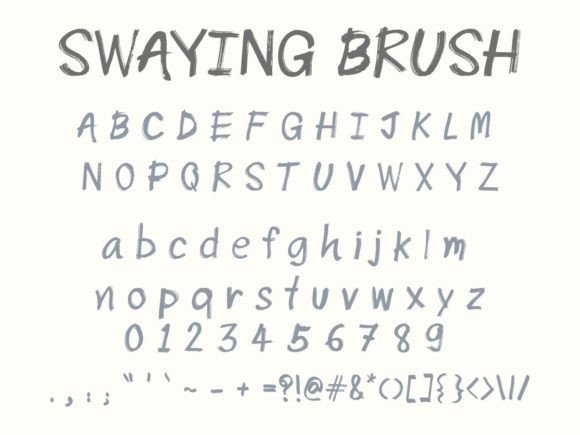
Introducing Swaying Brush Font, a captivating display font that evokes the beauty of life's easy-going moments. Inspired by gentle strokes of a brush, this font radiates a sense of whimsy and warmth that will transform your creative projects into visually captivating masterpieces.
With its fluid, expressive style, Swaying Brush is perfect for adding a touch of charm and personality to your designs. Whether you're creating wedding invitations, social media posts, or eye-catching branding materials, this font will make your words dance off the page and leave a lasting impression.
Let Swaying Brush be the secret ingredient that elevates your designs to new heights. Its curves and loops are reminiscent of a gentle breeze, creating a sense of movement and energy that will captivate your audience. It's the perfect choice for adding a touch of uniqueness to logos, posters, flyers, and more.
With Swaying Brush Font, you're not just downloading a font; you're embracing an artistic journey that will redefine your creative boundaries. Its versatility knows no bounds, allowing you to explore a spectrum of design possibilities.
Don't settle for ordinary fonts that blend into the background. Choose Swaying Brush and let your words take center stage. It's a font that speaks volumes, conveying a message of joy, optimism, and boundless creativity.